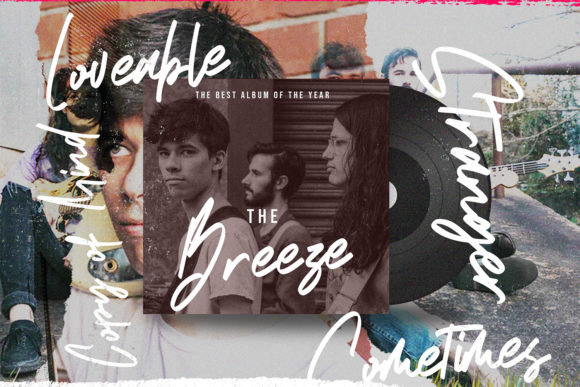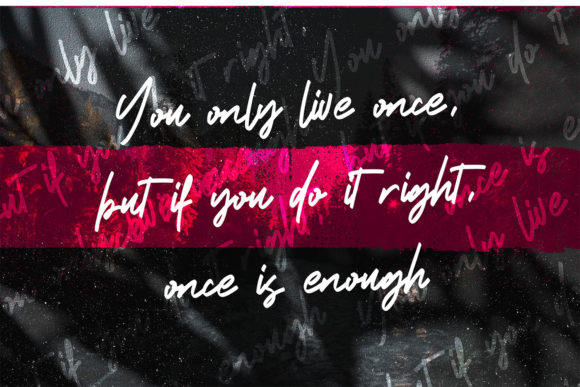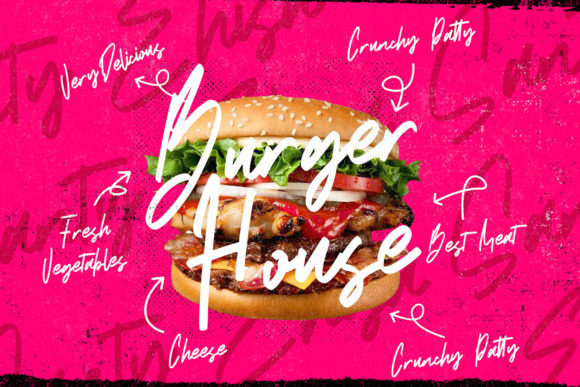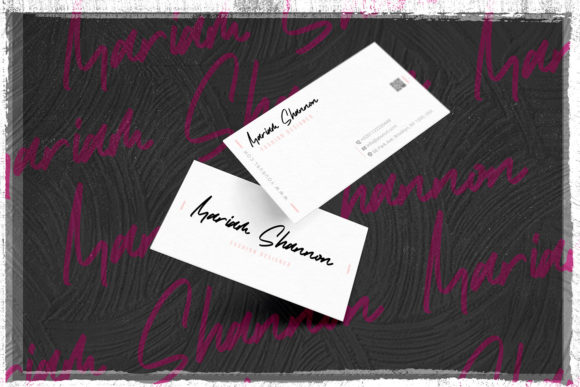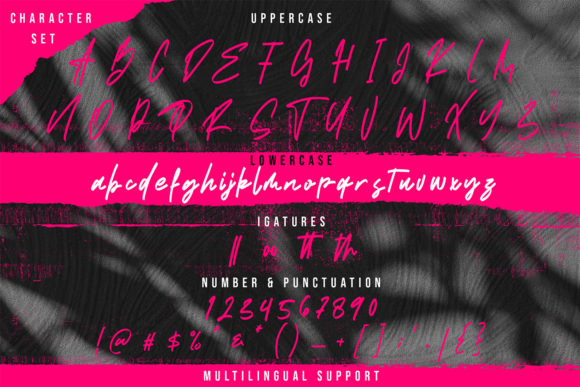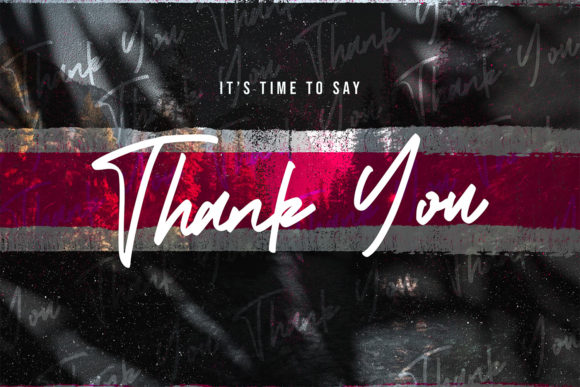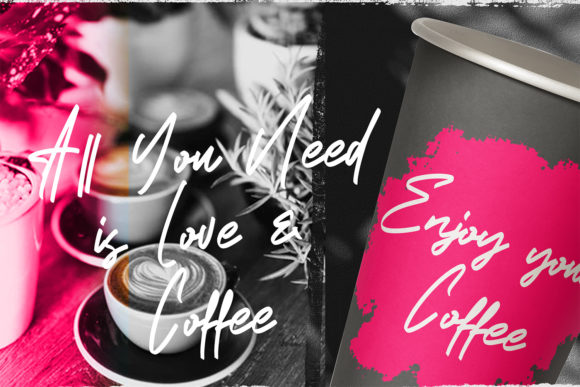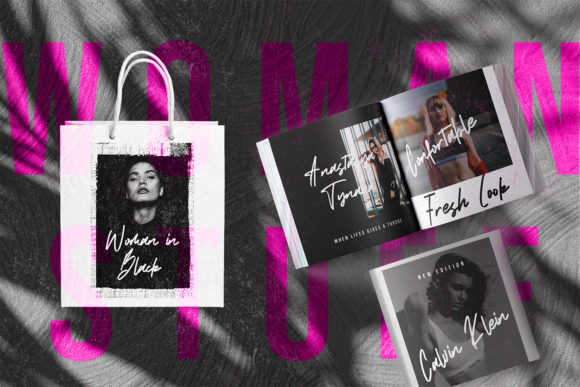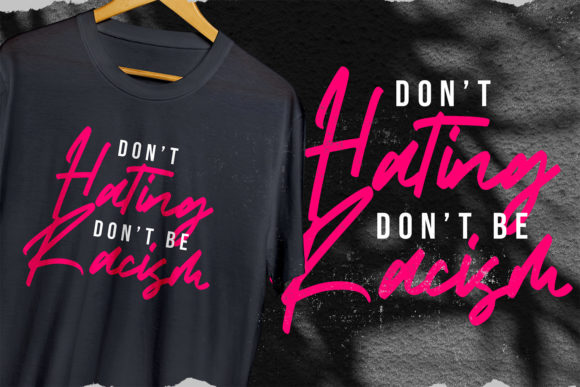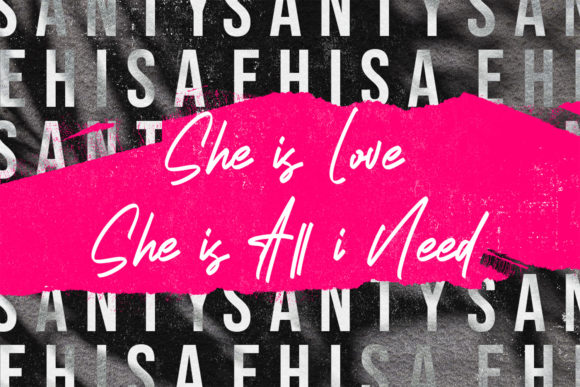
Santy Ehisa Font
About Santy Ehisa Font
Santy Ehisa is a stylish and beautiful handwritten font, masterfully designed to become a true favorite. It maintains its classy calligraphic influences while feeling contemporary and fresh. Fall in love with this font and bring your projects to the highest levels!